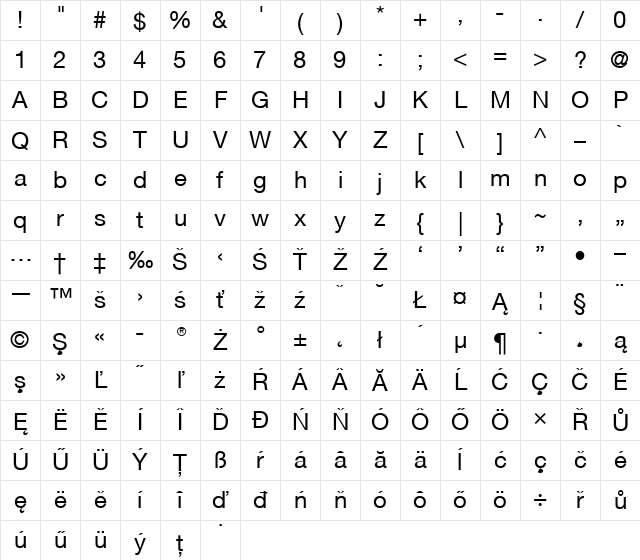
Complete Helvetica CE 55 Roman Regular glyph index. Displaying only characters natively supported by Helvetica CE 55 Roman Regular font.
Helvetica CE 55 Roman is a composed and adaptable typeface that performs quietly and consistently across a wide range of design contexts.